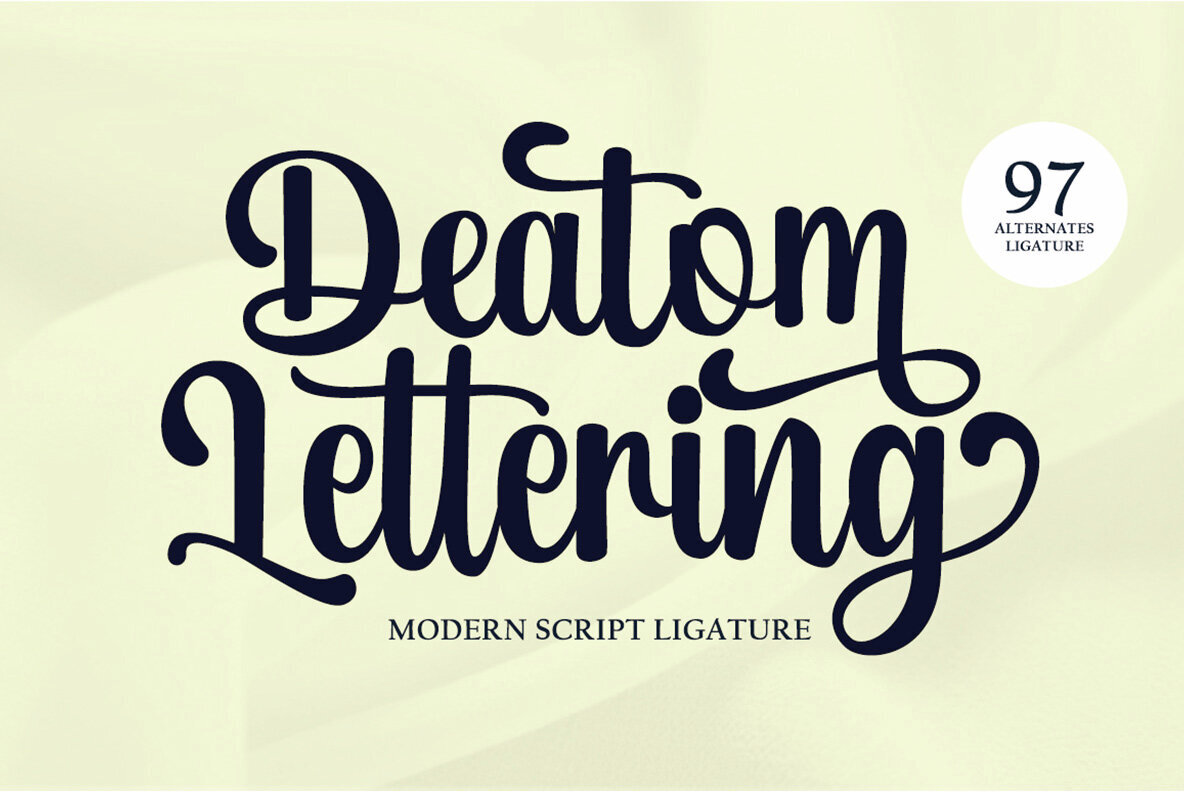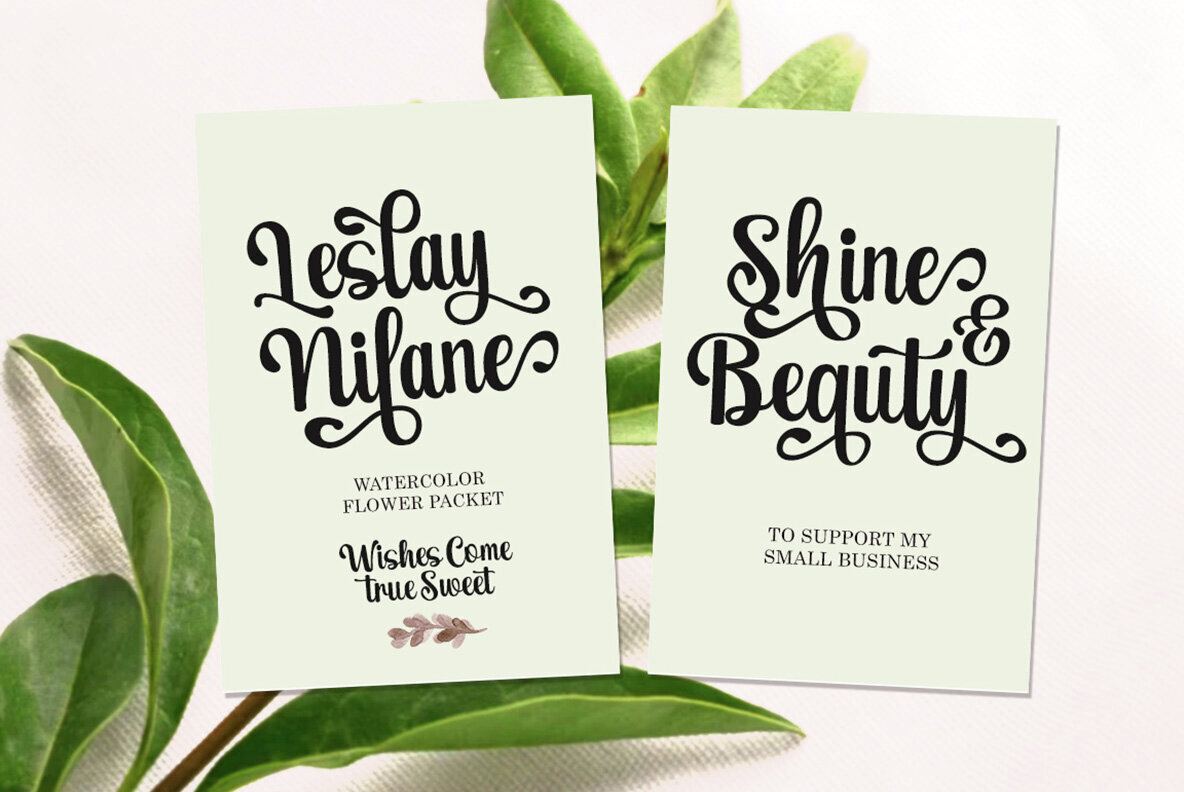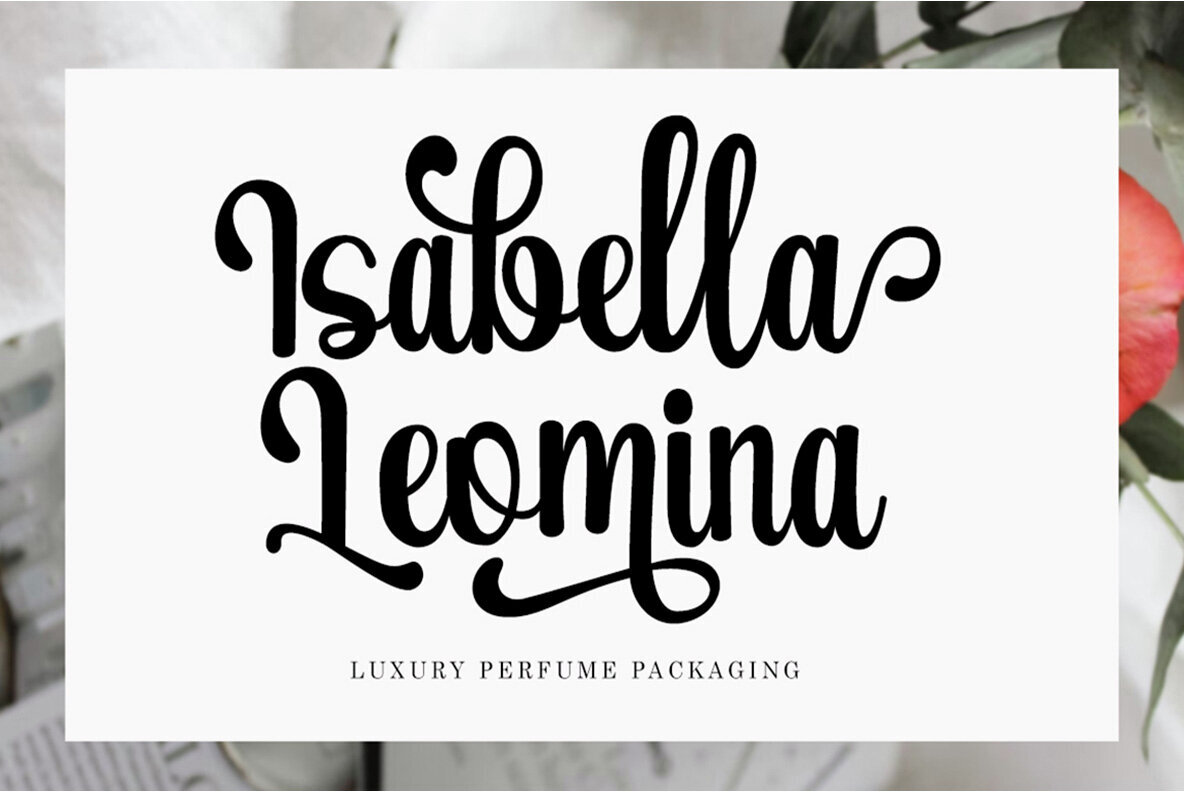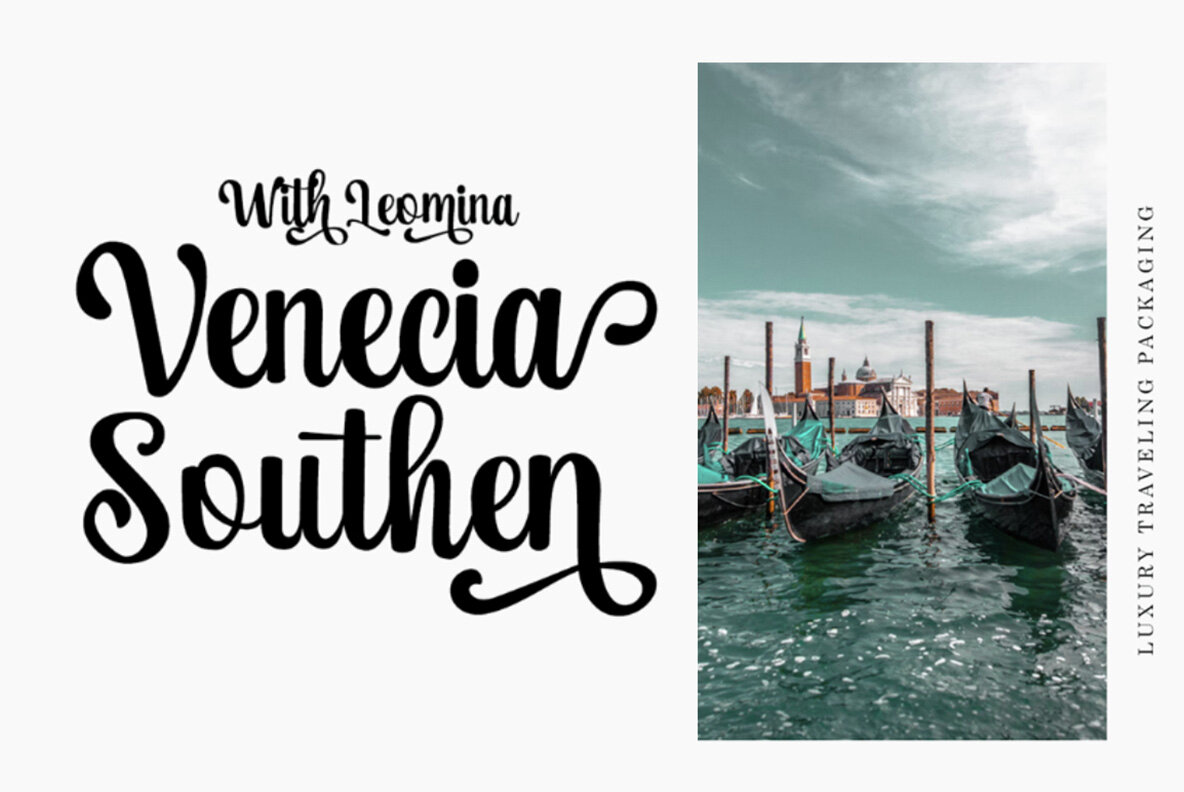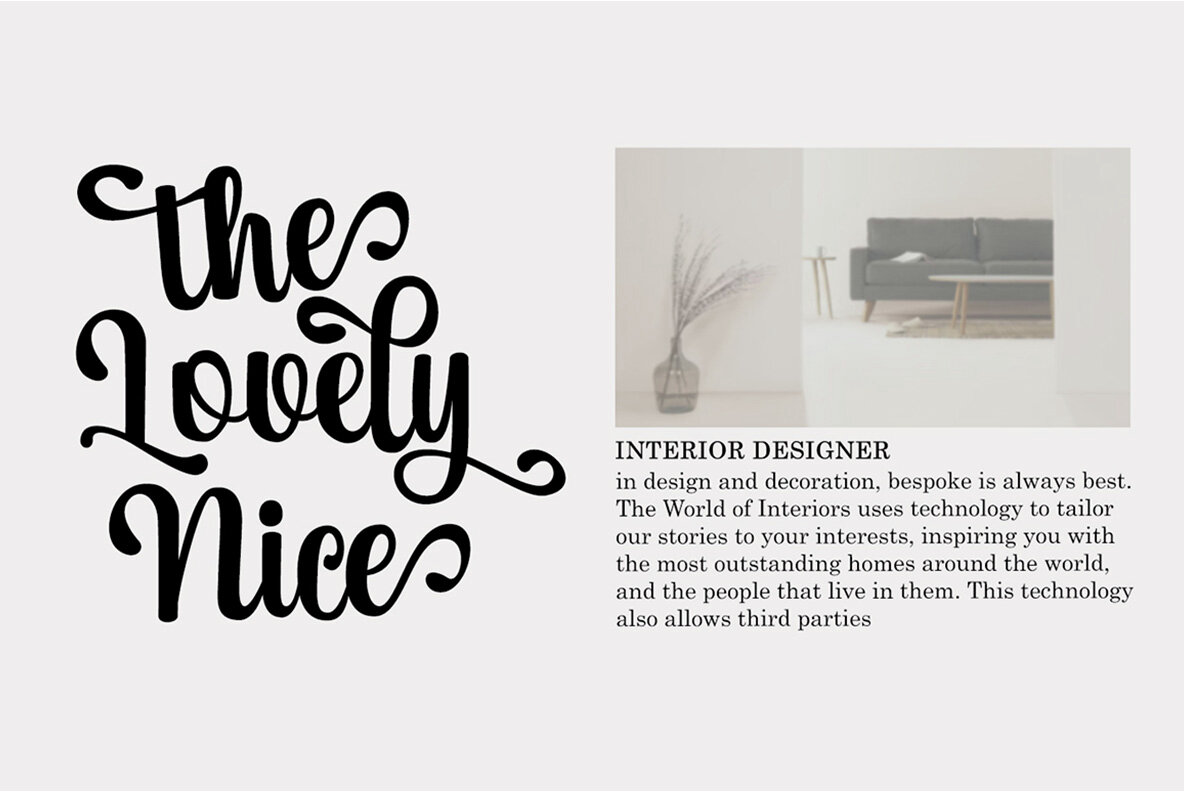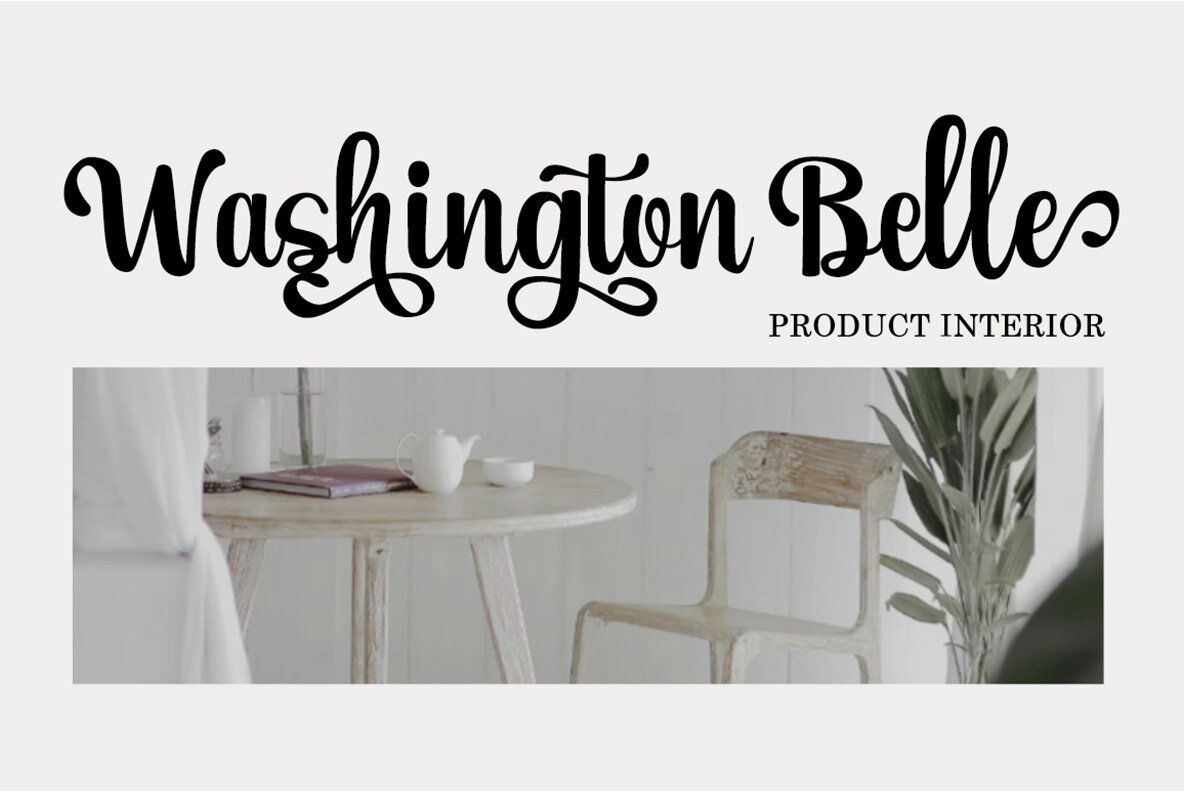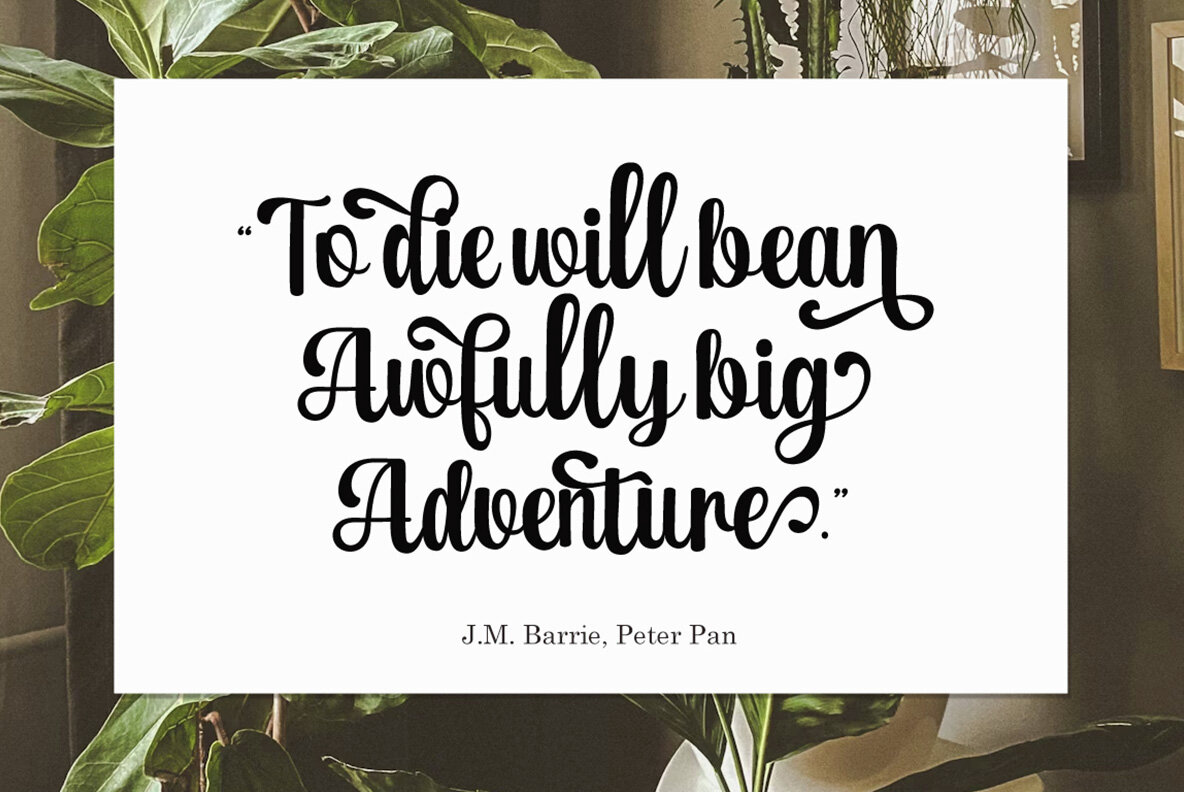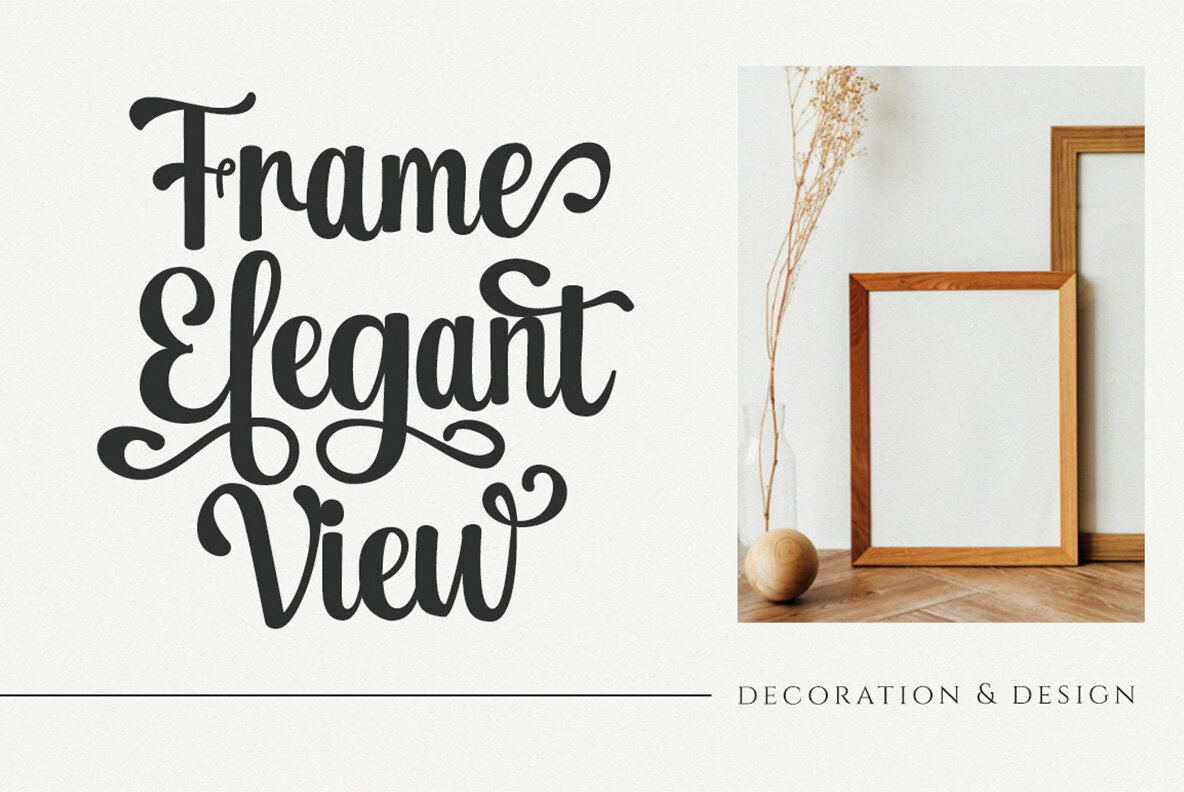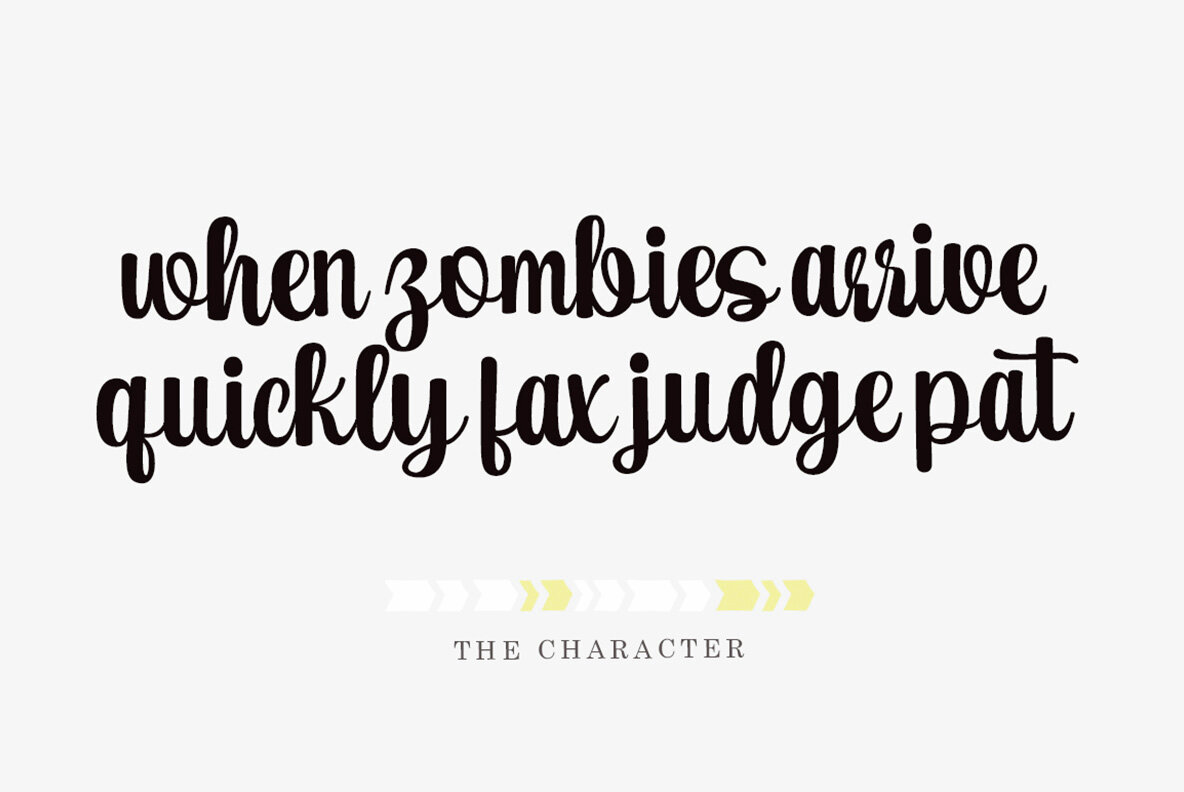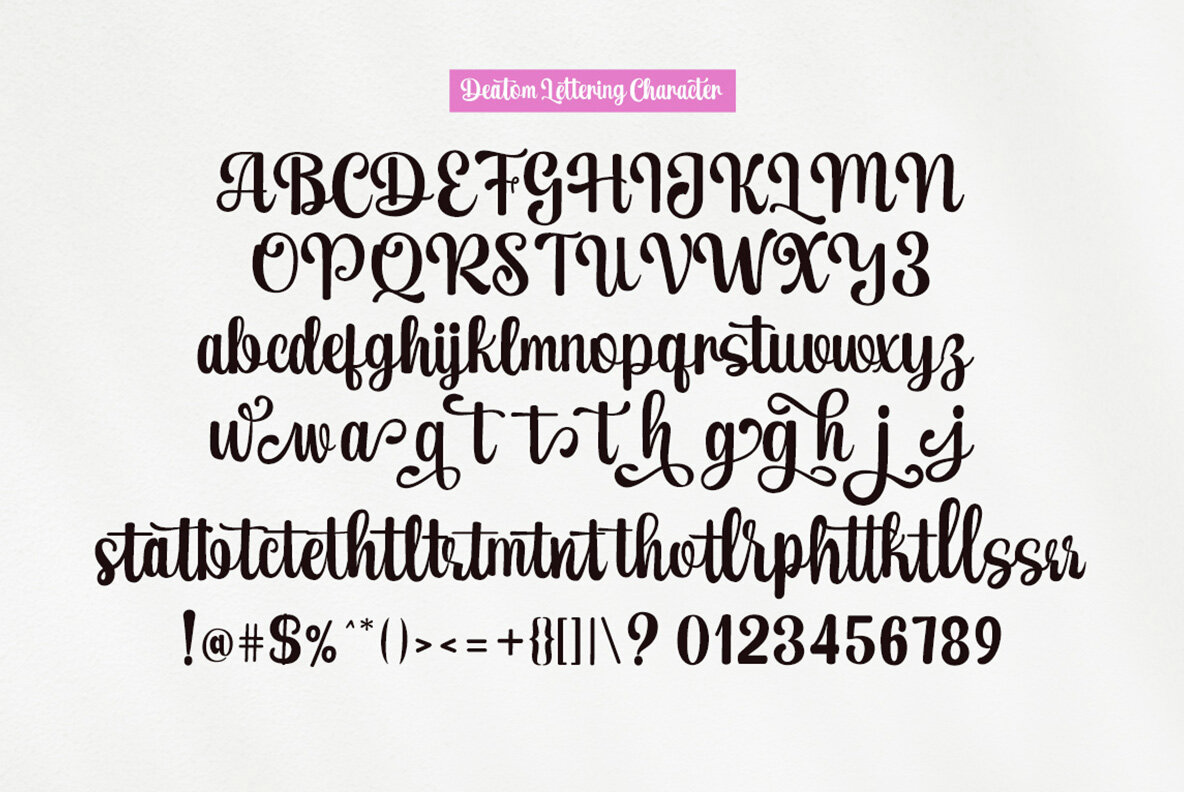
Deatom Lettering Font
Deatom Lettering Regular
Deatom Lettering brings a refined handwritten touch to any project. Crafted with an elegant and feminine style, this calligraphy font offers both regular and bold weights to suit a range of design needs. Its detailed collection of glyphs includes numerous alternates for each letter, making it highly adaptable for creative projects. Seamless access to stylistic variations is available in applications that support OpenType features. With its flexible design and extensive features, Deatom Lettering is ideal for branding, logo design, packaging, social campaigns, magazines, websites, wedding invitations, and more. Its versatility opens up a wide range of customization options, helping you achieve a distinctive and professional look across all creative formats.Deatom Lettering Handwritten Calligraphy Font